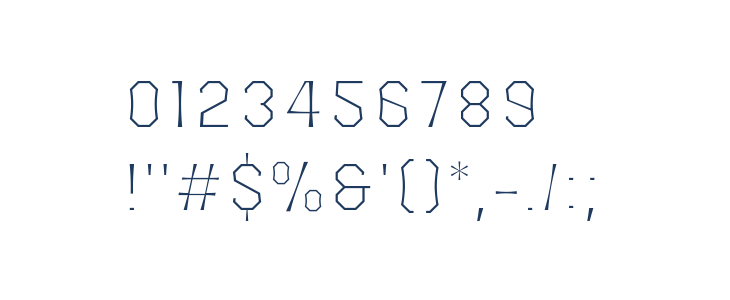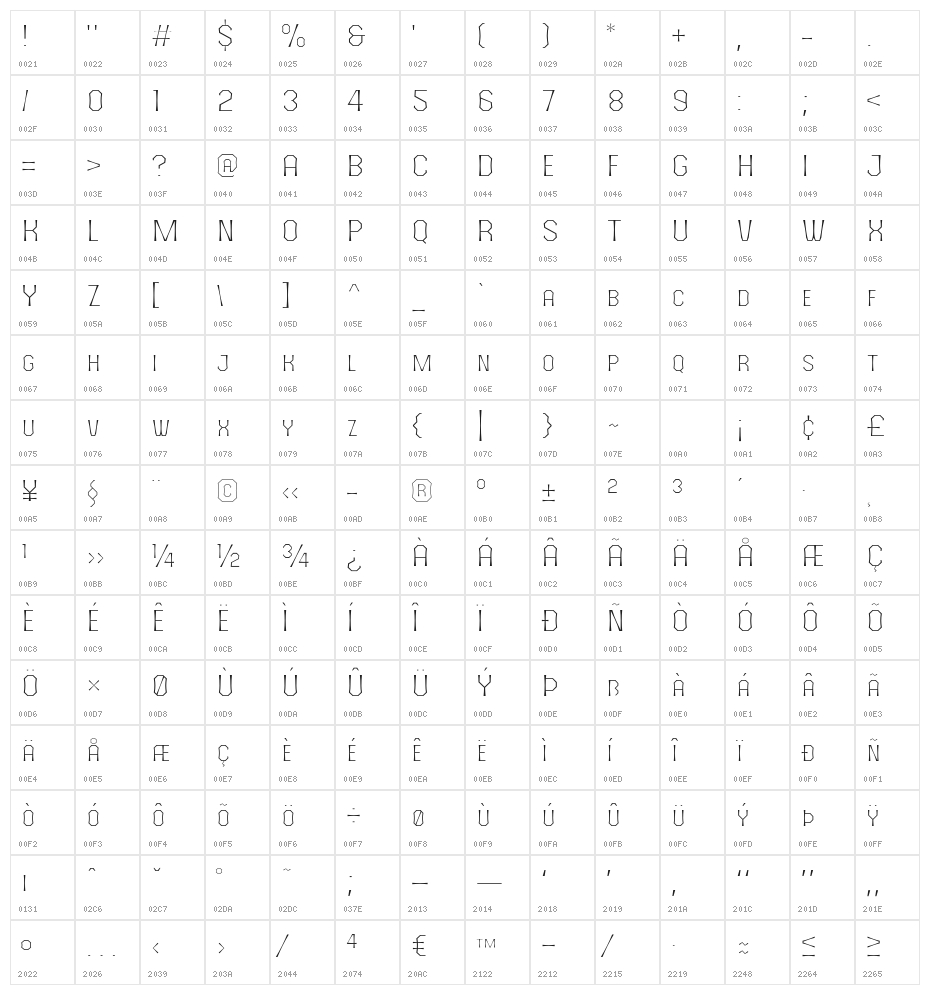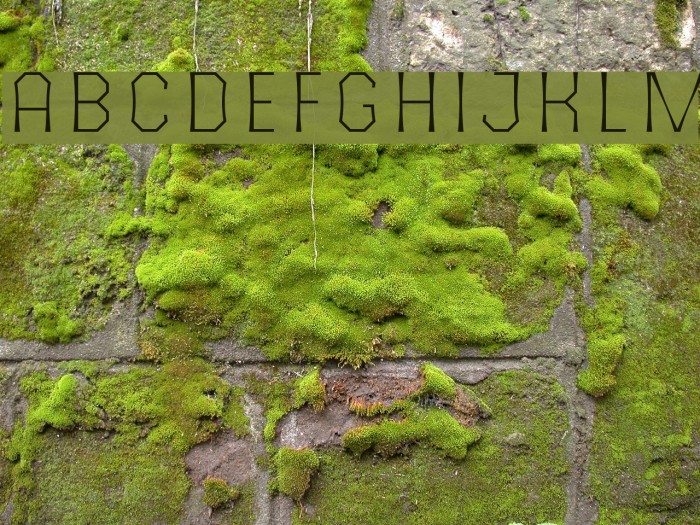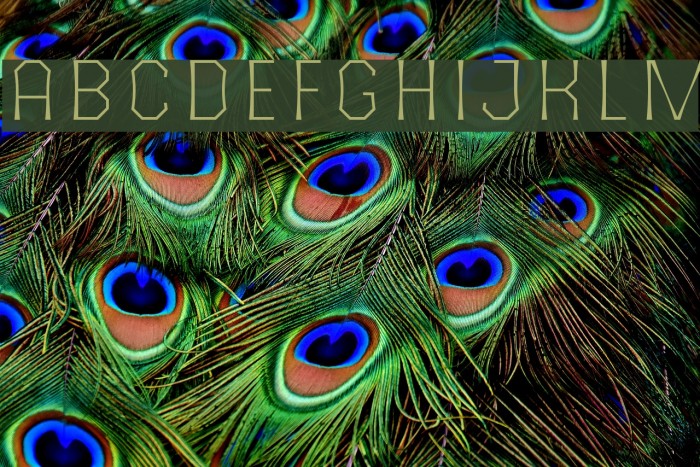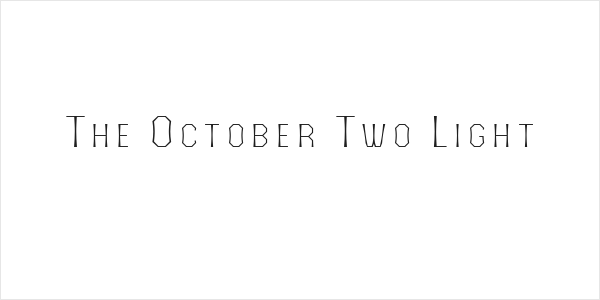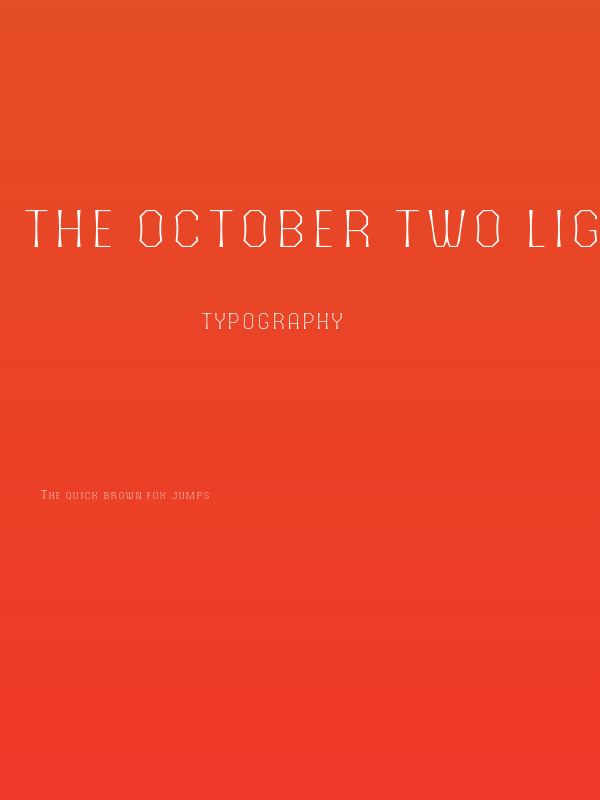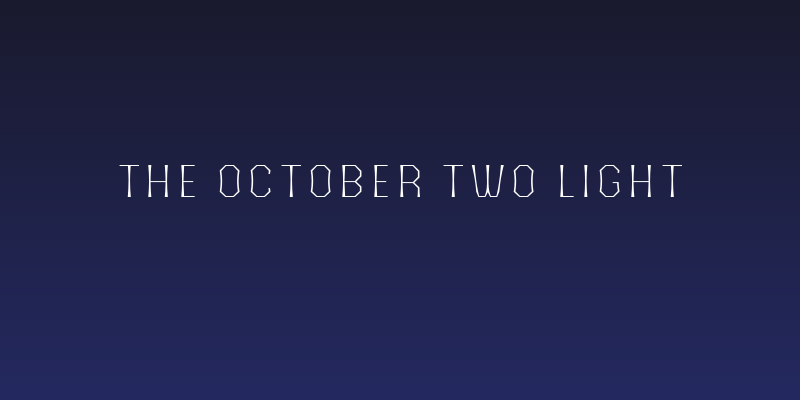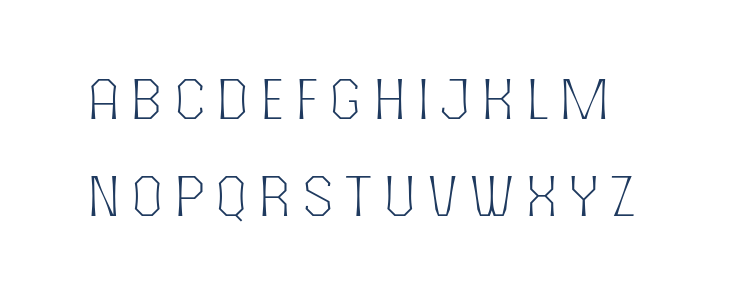
The October Two Light Font
The October Two Light Description
This font features a geometric and angular design, characterized by its sharp edges and clean lines. Each letterform is constructed with a consistent stroke width, giving it a uniform appearance. The uppercase and lowercase letters maintain a similar structure, enhancing readability while retaining a unique style. The numerals and special characters follow the same design principles, ensuring cohesion across all glyphs. This font's modern and minimalist aesthetic makes it suitable for contemporary design projects.
| Use Case | Logos, Headlines, Posters |
| Proposed Projects | Ideal for branding, logos, posters, and digital media where a modern and distinctive look is desired. |